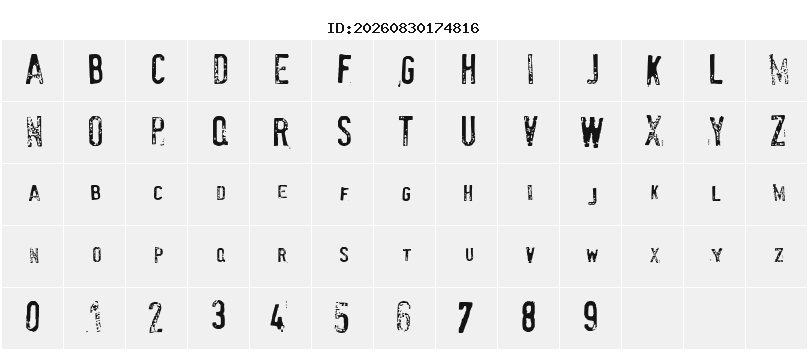
• Font Name: Testerus
• Full Font Name: Testerus
Testerus.ttf is a modern, elegant sans-serif font designed for ultimate readability and visual harmony. Perfect for branding, headlines, web design, and print materials.